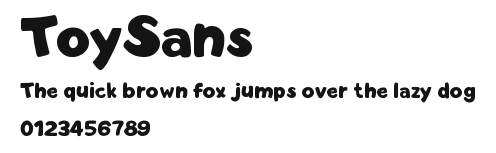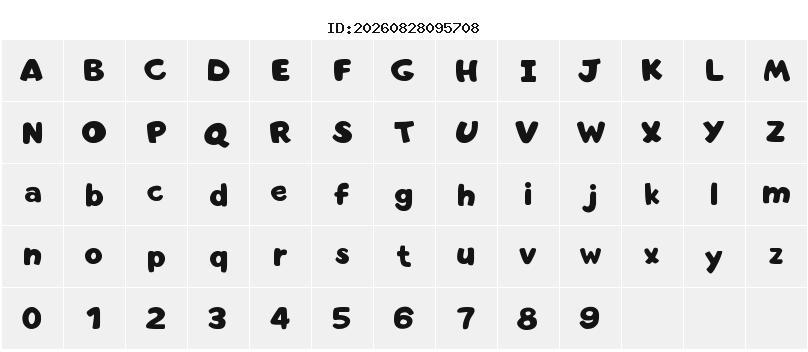
• Font Name: ToySans
• Font ID: TRU-FS Version 1
• Full Font Name: ToySans
• Version: Version 1.00 2007, initial release
• PostScript Name: ToySans
• Character Count: 125
About ToySans.ttf
ToySans.ttf is a modern, elegant sans-serif font designed for ultimate readability and visual harmony. Perfect for branding, headlines, web design, and print materials.